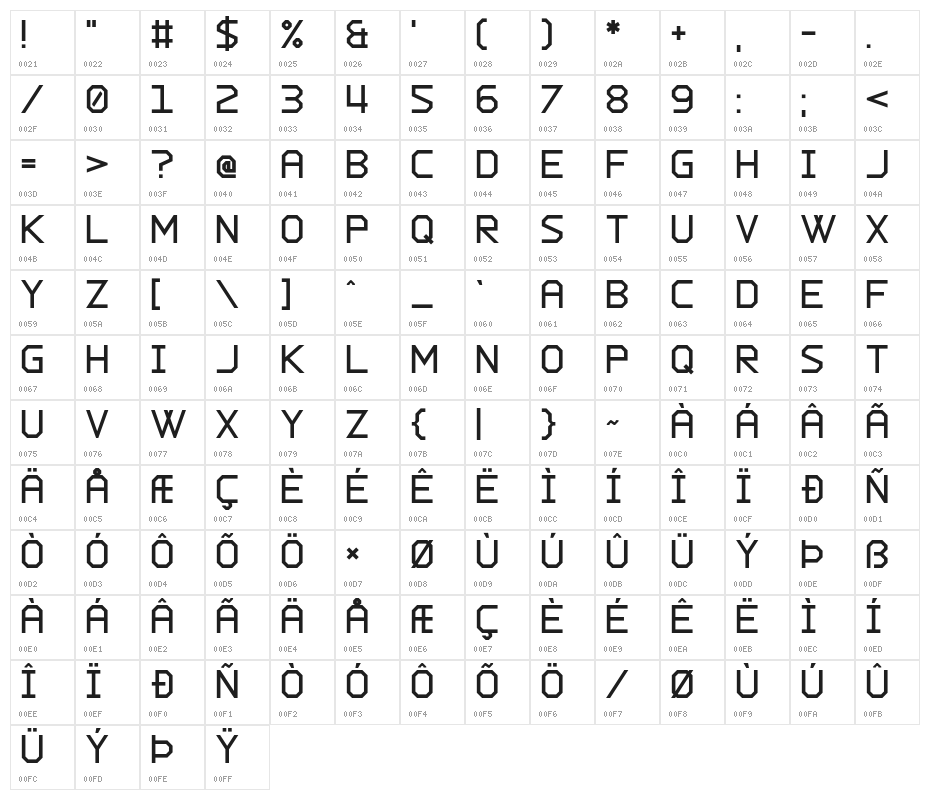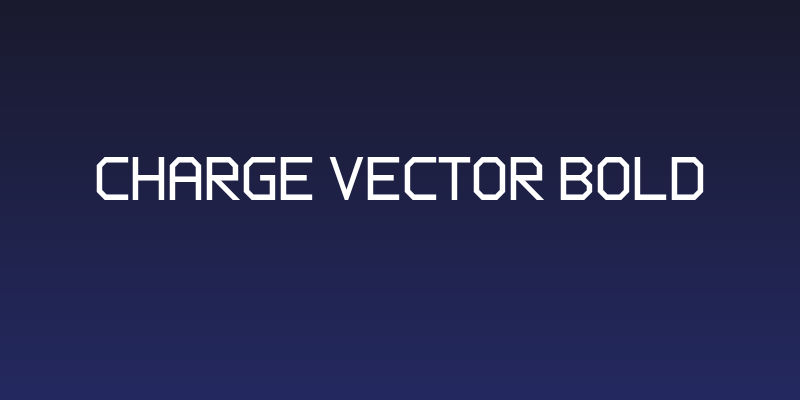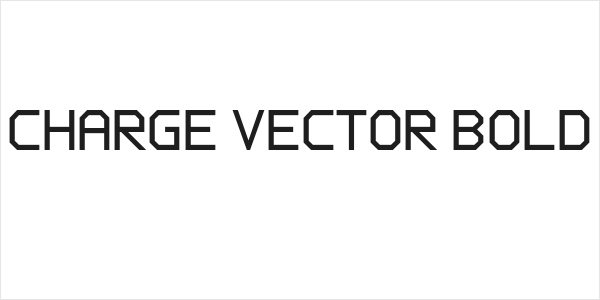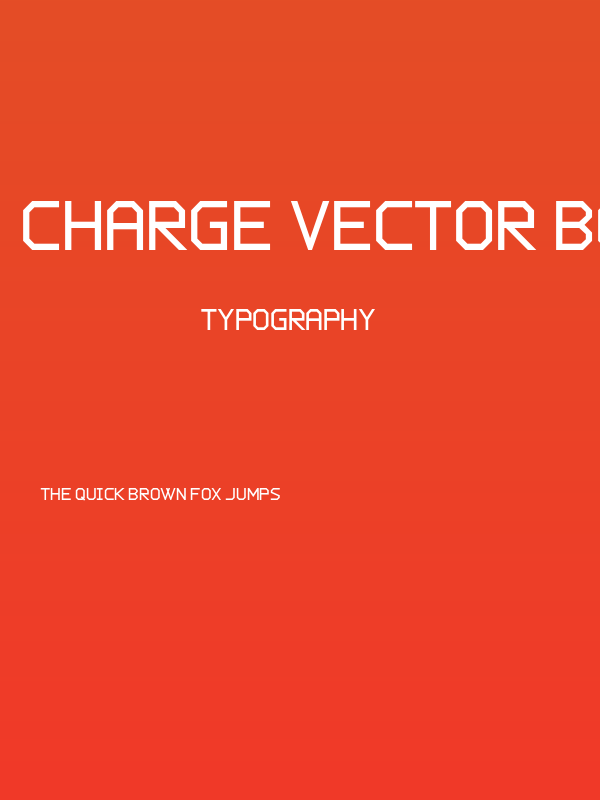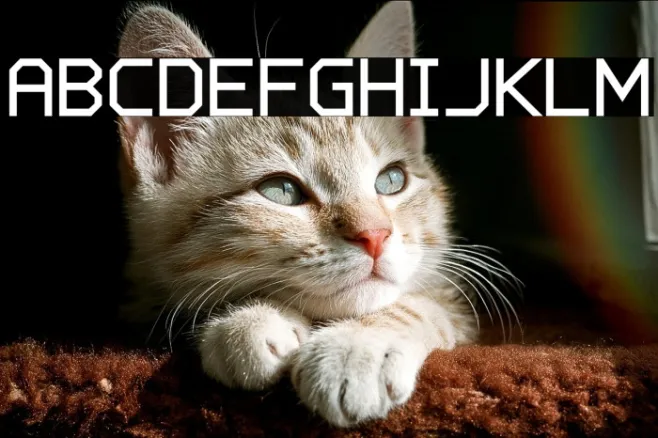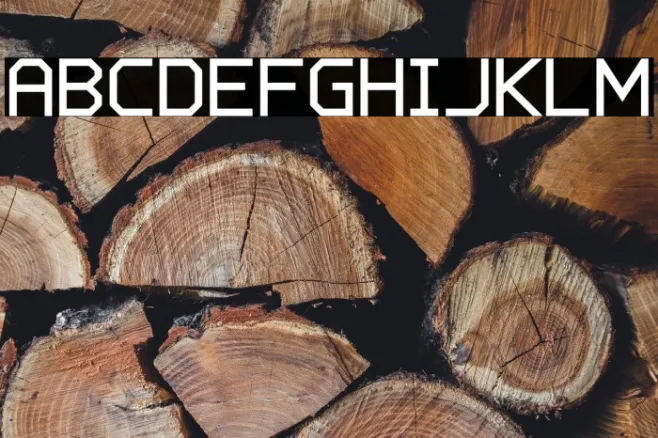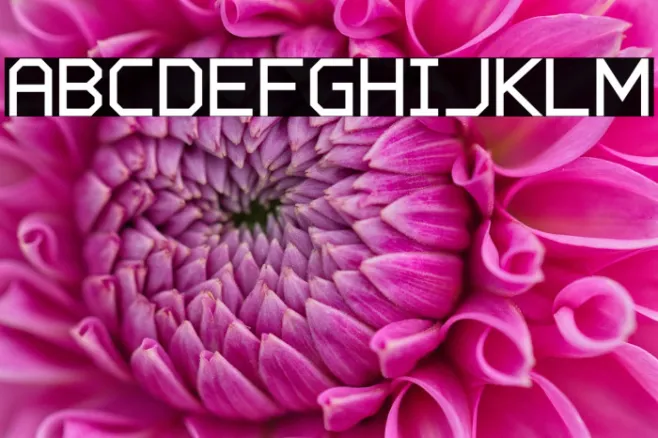
Charge Vector Bold Font
Charge Vector Bold Description
This font features a bold, geometric design with a distinct angular style. Each character is constructed with straight lines and sharp corners, giving it a futuristic and technical appearance. The uppercase and lowercase letters maintain a consistent height, contributing to a uniform look across text. The numerals and special characters follow the same angular theme, ensuring a cohesive visual identity. The font's structure is reminiscent of digital or technological themes, making it suitable for modern and innovative design projects. Its boldness ensures high visibility and impact, making it ideal for attention-grabbing headlines or branding materials.
| Proposed Projects | Ideal for technology branding, digital interfaces, video game titles, and modern advertising campaigns. |